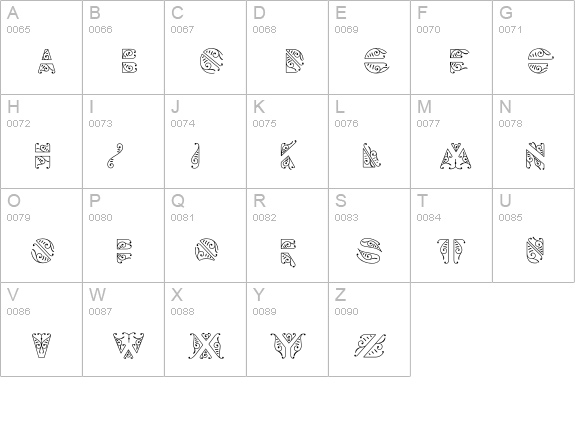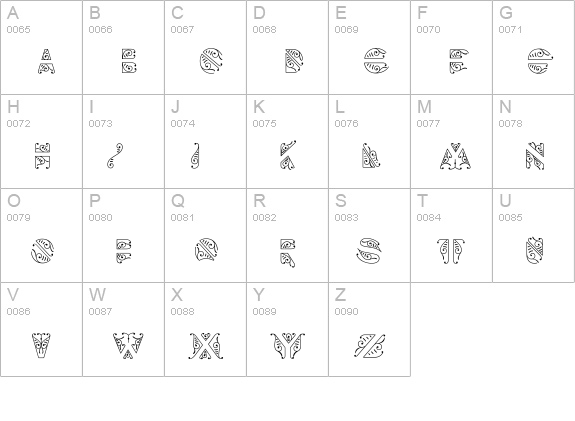
MFC Damask Flourish Font Details
MFC Damask Flourish font is a stunning display typeface that exudes elegance and sophistication. This ornate font features intricate flourishes and intricate details, making it perfect for projects that require a touch of luxury and glamour. Whether you are designing a wedding invitation, a logo, or any other creative project, MFC Damask Flourish font will surely make a statement. The best part is that this exquisite font is available for free download at FontsMarket.com, allowing you to add a touch of class to your designs without breaking the bank. Don't miss out on the opportunity to enhance your projects with the beauty of MFC Damask Flourish font. Download it today and elevate your designs to new heights of style and sophistication.